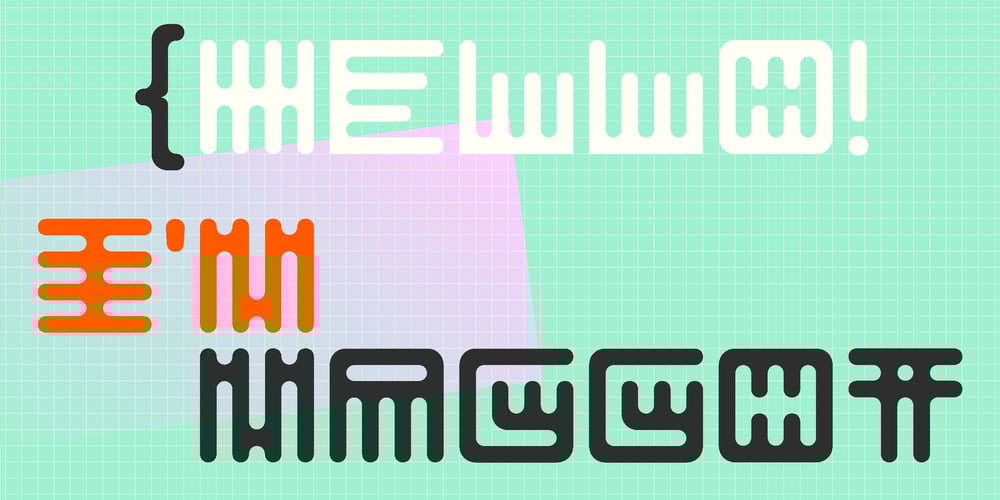
Maggot Font Family was designed by Malgorzata Bartosik and published by Malgorzata Bartosik. Maggot contains 1 styles and family package options. Maggot is crazy geometric display typeface. First 36 characters were designed during #36daysoftype 2021. Each letter of the typeface fits into a square composed of 49 modules. Maggot contains 112 letters – Basic Latin, Western, Central and South Eastern European diacritics. Each character that contains a mark has two versions: regular, where the mark is above or below the height of the character and alternate, where character with mark is the same height as characters without marks. Maggot is a display typeface, it works best as short inscriptions, for example on vinyl and book covers, posters, T-shirts, packaging.